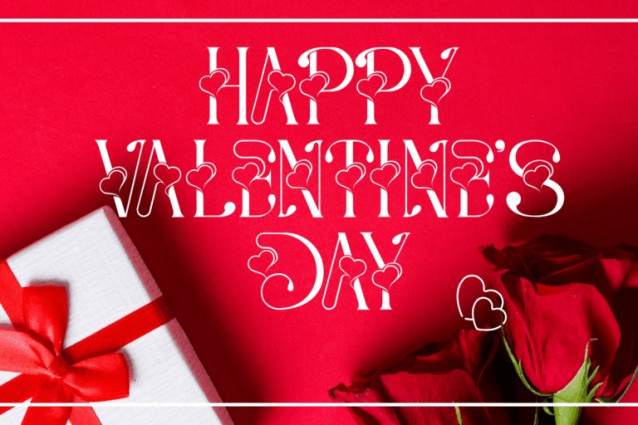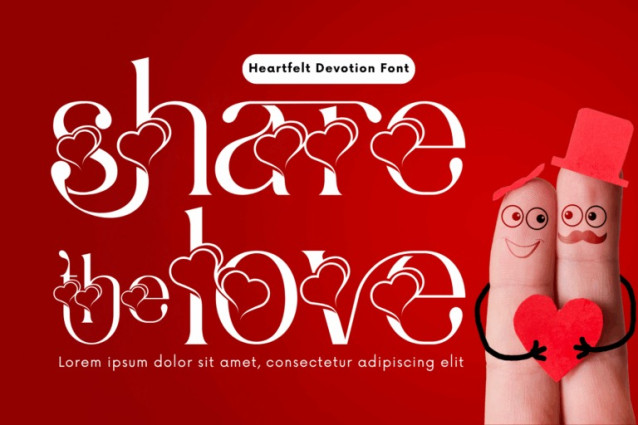
Heartfelt Devotion Font
Heartfelt Devotion – Romantic Font is a charming and romantic serif display font crafted to capture the warmth of affection and heartfelt expression. With its unique heart-infused terminals and whimsical curves, this typeface is designed to bring elegance, sweetness, and personality to any design. Perfect for wedding invitations, Valentine’s Day designs, quotes, packaging, and editorial titles, Heartfelt Devotion delivers a visual poetry that speaks directly to the heart. Each glyph is delicately styled to blend classical serif sophistication with playful ornamental detailing.
Font Features:
Uppercase & Lowercase Letters
~100 Special Heart Ligatures
Accented Characters for Multilingual Support
Romantic curves & decorative flair
About 100 ligatures combined with Stylistic Alternates Font: